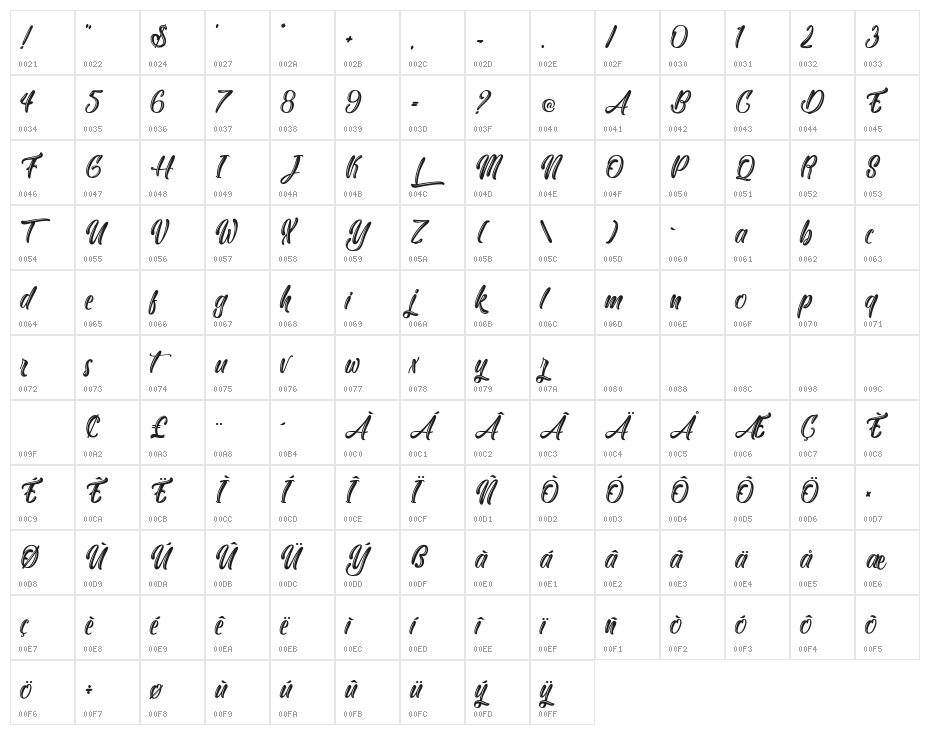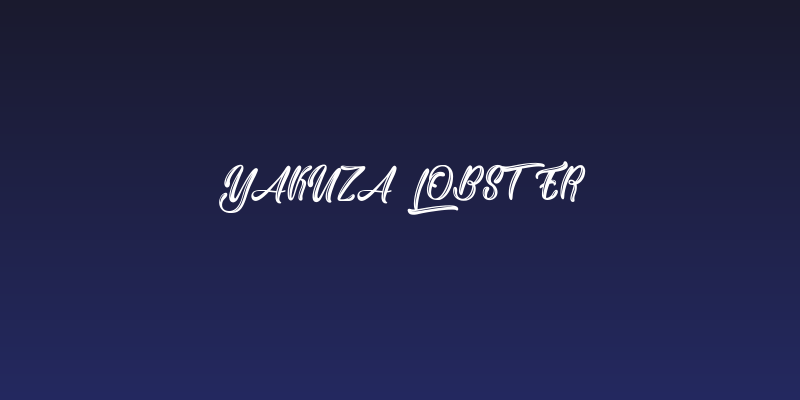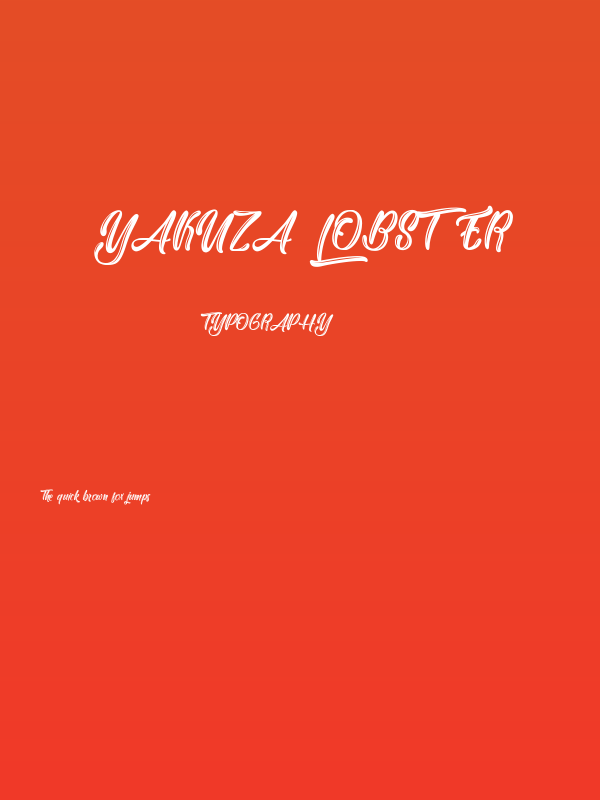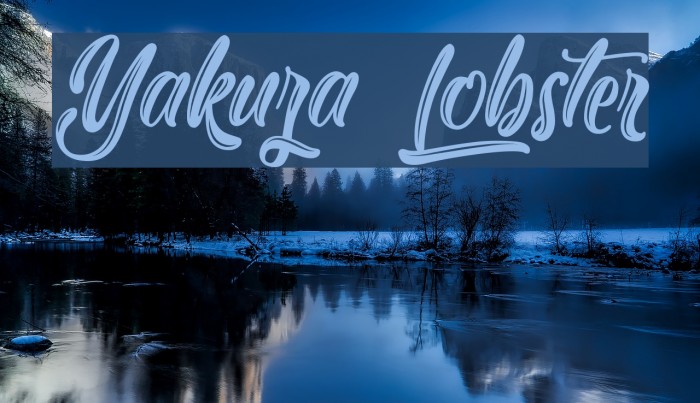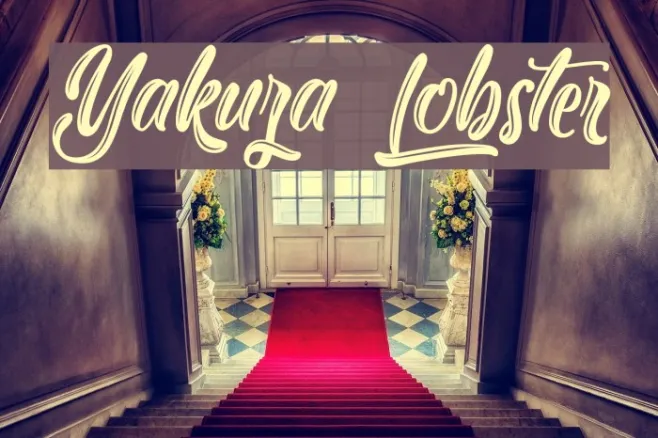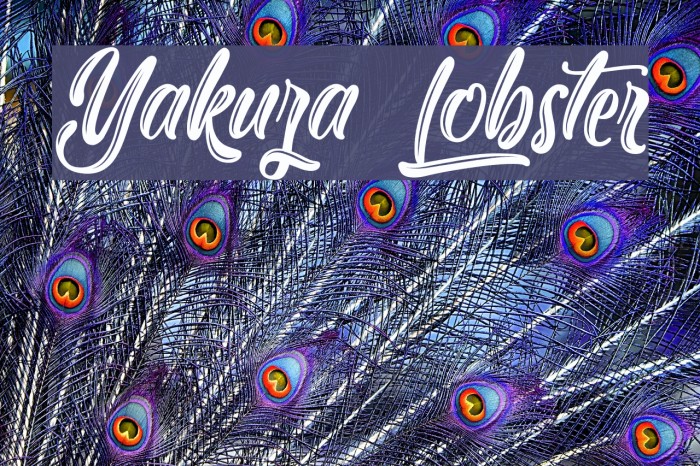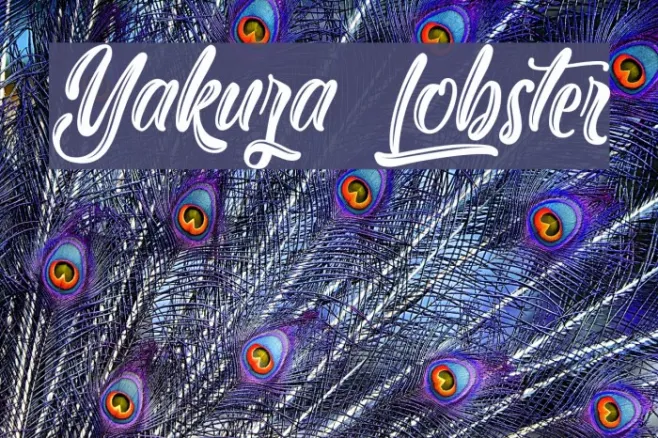
Yakuza Lobster Font
Yakuza Lobster Description
This font features a bold and dynamic script style with a strong presence. The characters are fluid and connected, giving a sense of movement and elegance. The uppercase letters are particularly striking, with sweeping curves and dramatic flourishes. The lowercase letters maintain a consistent flow, complementing the uppercase with their smooth and rounded forms. Numbers and special characters are designed with the same attention to detail, ensuring a cohesive look throughout. This font is ideal for projects that require a touch of sophistication and flair.
| Use Case | Logos, Headlines, Invitations |
| Proposed Projects | Ideal for branding, invitations, posters, and any design needing a sophisticated script touch. |